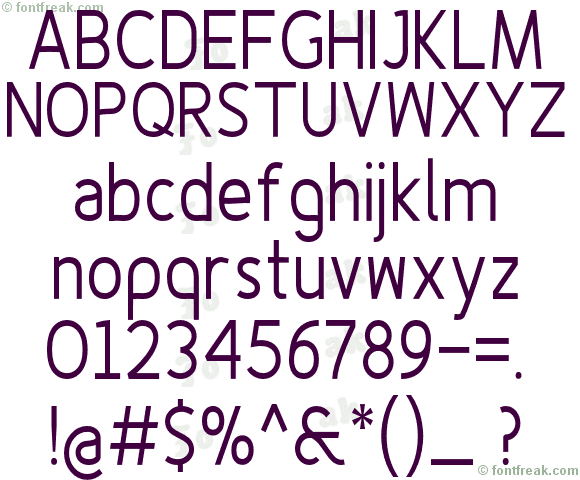
Fineness Pro ExtraLight Cond
Fineness Pro ExtraLight Cond, designed by Asley Cruz, is a striking sans-serif font that embodies elegance and modernity. With its extra-light stroke weight, this font offers a refined appearance that maintains clarity and legibility across various applications. The condensed design of the characters allows for efficient use of space, making it particularly appealing for projects that require a sleek and sophisticated touch. The visual characteristics include subtle contrast between thick and thin strokes, which enhances the overall aesthetic without overpowering the design.
This font is ideal for a range of use cases, including wedding invitations, where its delicate nature can add an air of sophistication. It is also well-suited for branding projects, such as logos for boutique shops or artisan products, where a clean and modern feel is essential. Additionally, Fineness Pro ExtraLight Cond can elevate restaurant menus, providing a chic look that complements contemporary dining experiences. Content creators will find it useful for digital presentations and social media graphics, where a polished and professional appearance is crucial.
The target audience for this font includes graphic designers, small business owners, and content creators who seek to make a memorable impression with their visual communications. The versatility of Fineness Pro ExtraLight Cond allows it to adapt seamlessly to various design needs, ensuring that it resonates with a wide range of consumers.
In conclusion, the Fineness Pro ExtraLight Cond font stands out due to its unique combination of elegance and functionality. Its distinctive design, paired with its availability for free download, makes it an invaluable resource for anyone looking to enhance their projects with a sophisticated typographic choice.